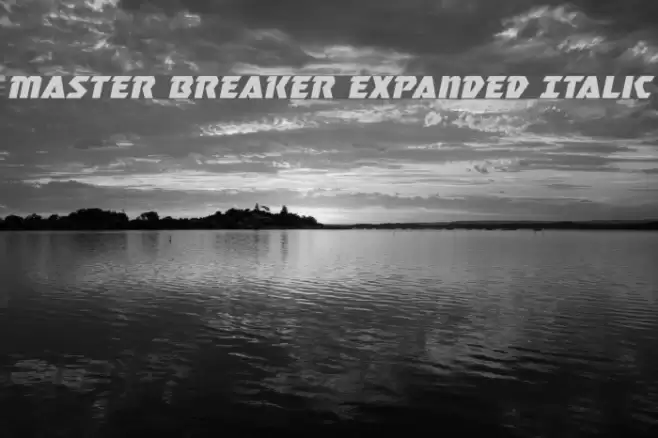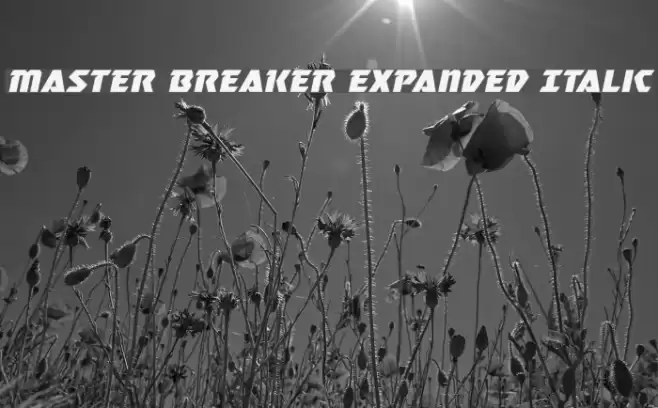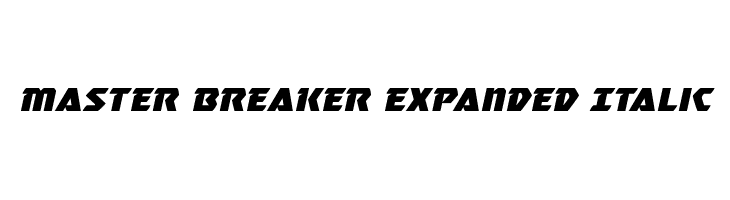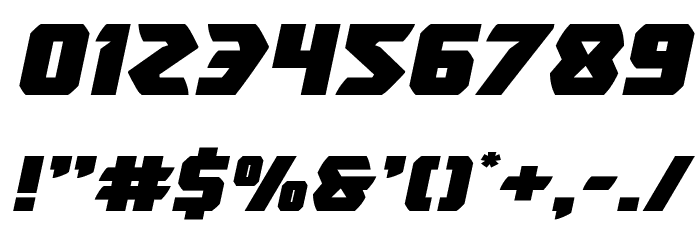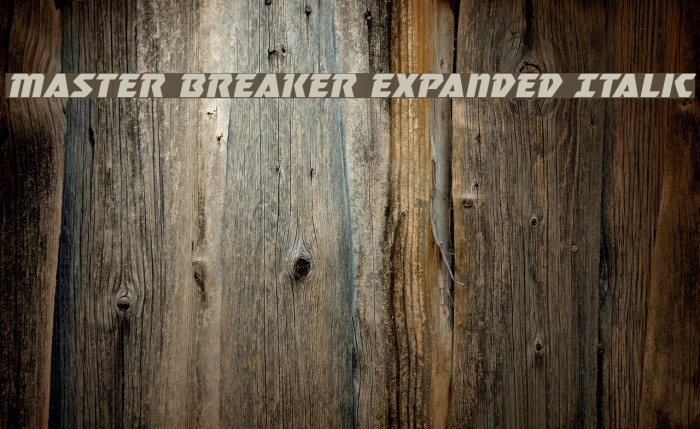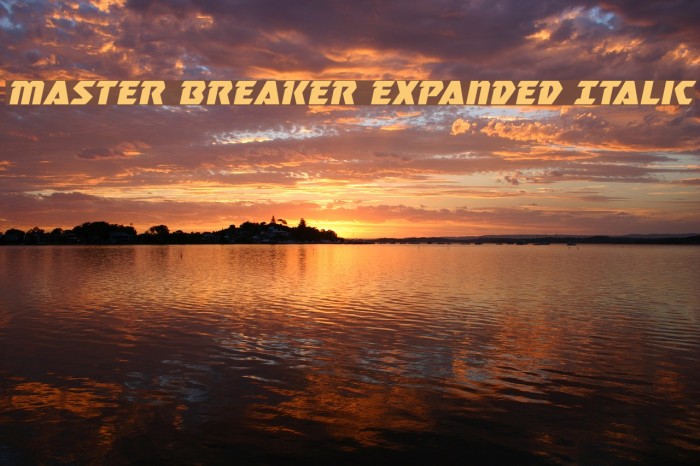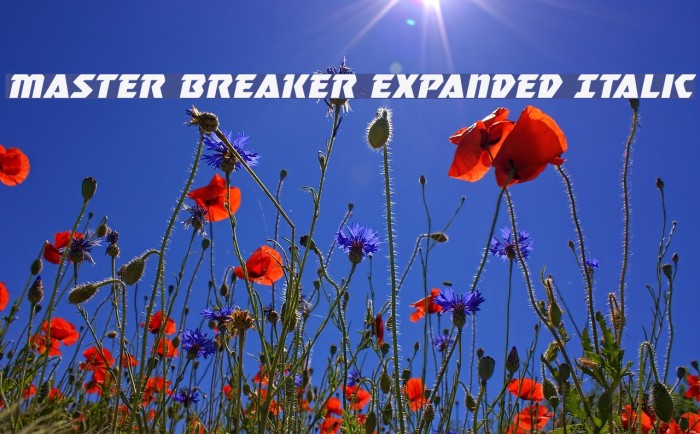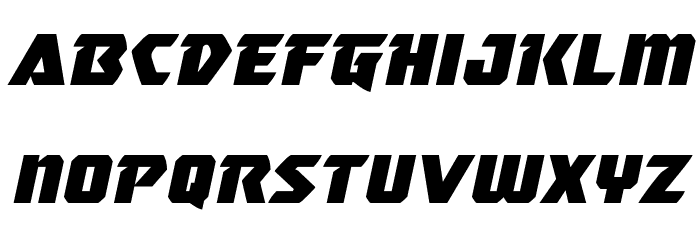
Master Breaker Expanded Italic Font
Master Breaker Expanded Italic Description
This font features a bold and dynamic style with an italic slant, giving it a sense of movement and energy. The characters are expanded, providing a wide stance that enhances readability while maintaining a strong visual impact. The angular and geometric shapes of the letters contribute to a modern and futuristic appearance, making it suitable for attention-grabbing designs. The uniform stroke width ensures consistency across all characters, while the expanded width allows for a commanding presence on any medium.
A bold, expanded italic font with a modern, dynamic style from Sci-fi fonts.
- Proposed Projects: Ideal for sports branding, video game titles, posters, and dynamic advertisements.